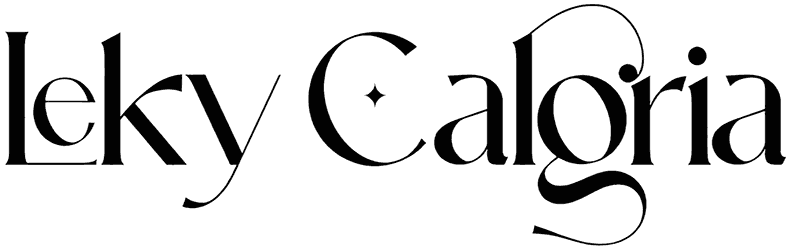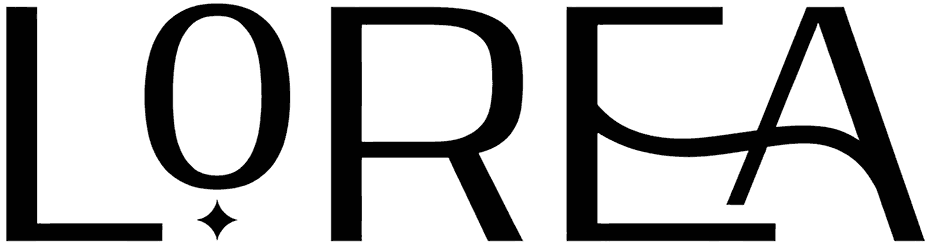
Sterla Font
Who doesn’t love vintage designs with memorable style? Sterla is a serif font that can induce this mood. This classic font in the modern face is capable of adorning countless designs with any subject. Try it for your subsequent designs, such as movie screens, product logos, magazines, and other kinds of stuff, and give them a novel form.
Designed by: Font Kingdom